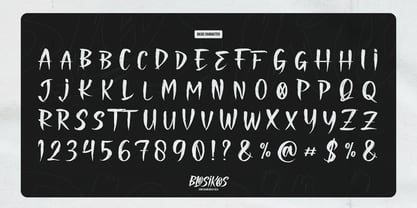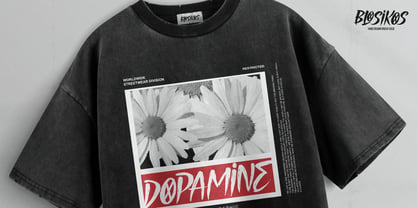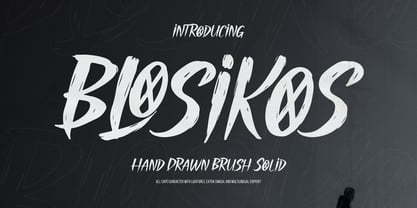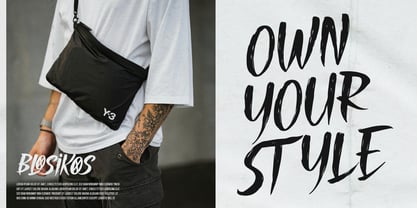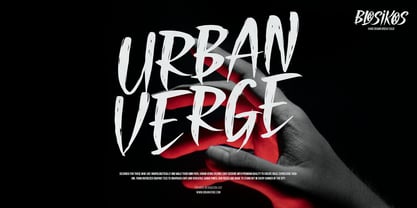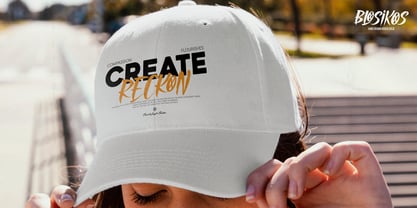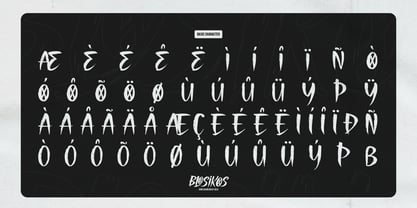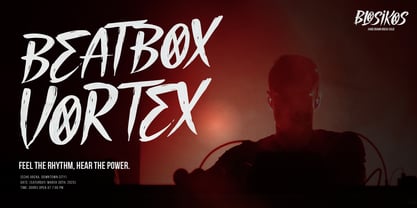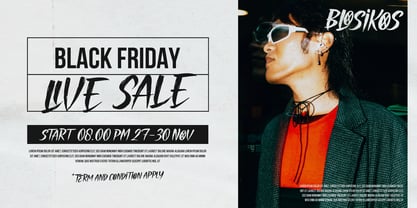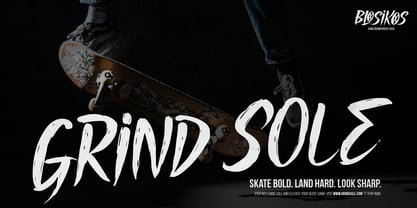
Blosikos
by Tini Fitriani
The Blosikos Font Family was designed by and published by Tini Fitriani. Blosikos contains 2 styles and family package options. More about this family
Blosikos | Hand Drawn Brush, from Gracetypestudio, suitable for any projects such as: logos, branding projects, homeware designs, product packaging, mugs, quotes, posters, shopping bags, t-shirts, book covers, name card, invitation cards, greeting cards, label, photography, watermark, special events, and all your other lovely projects that need a Hand Drawn Brush taste.